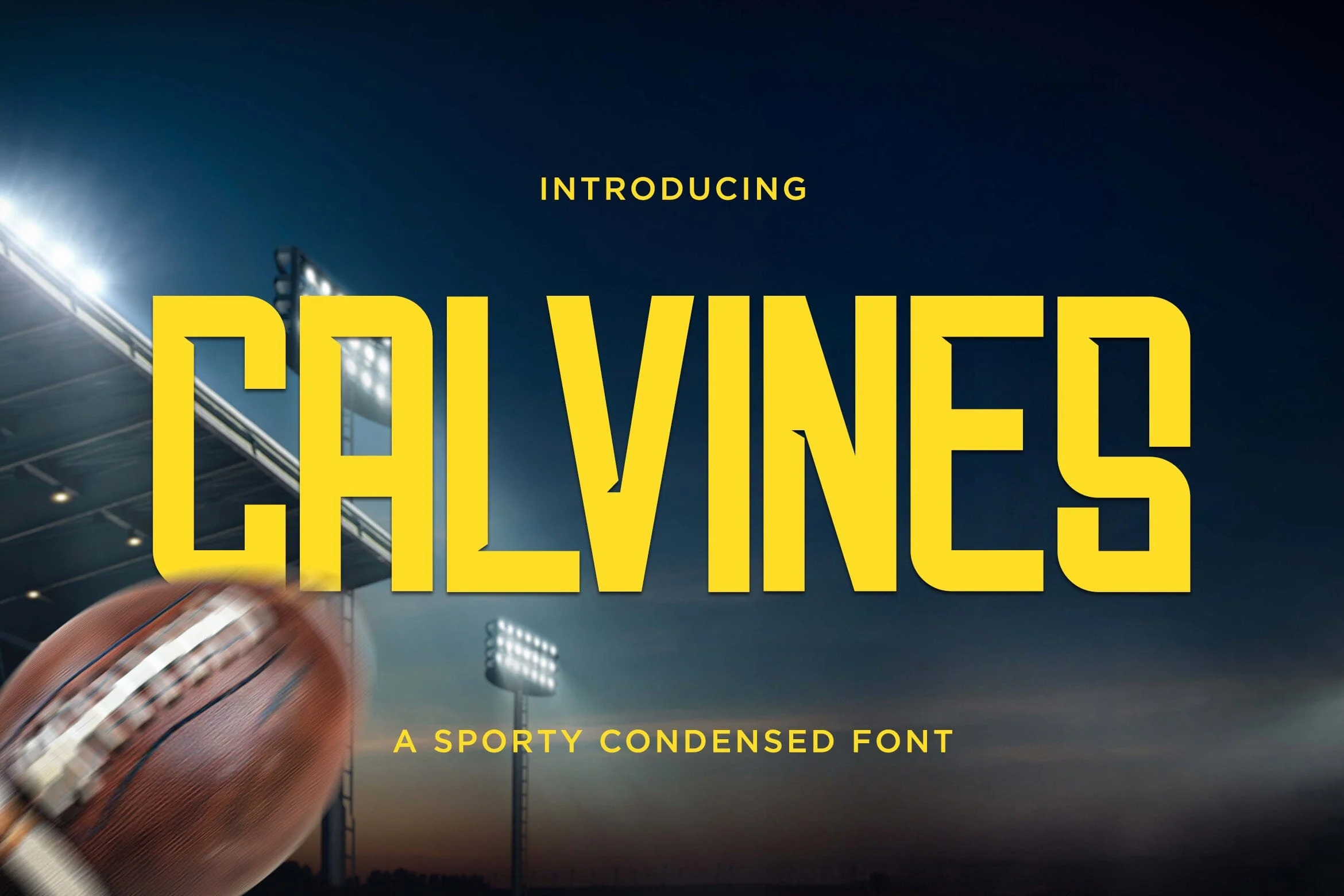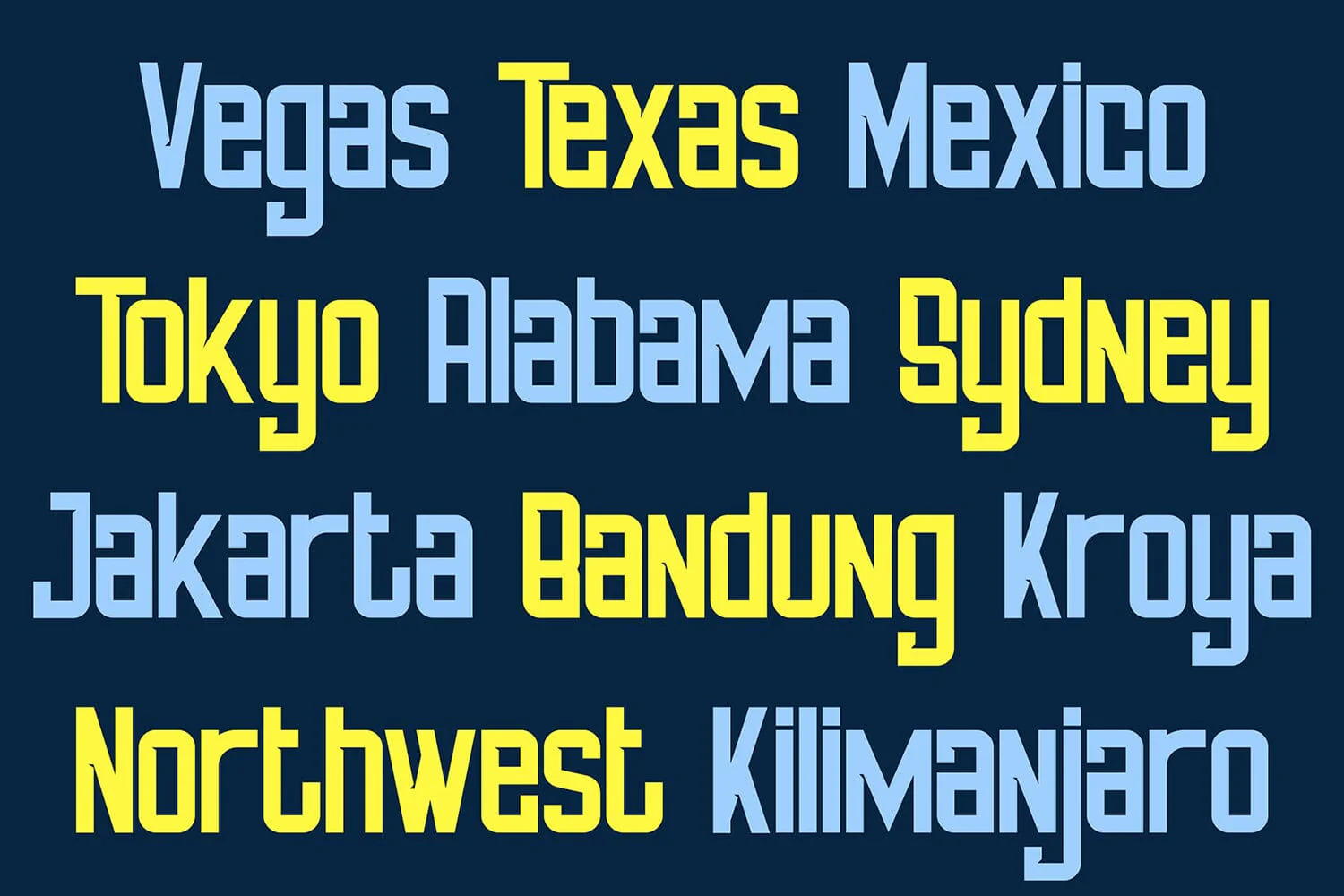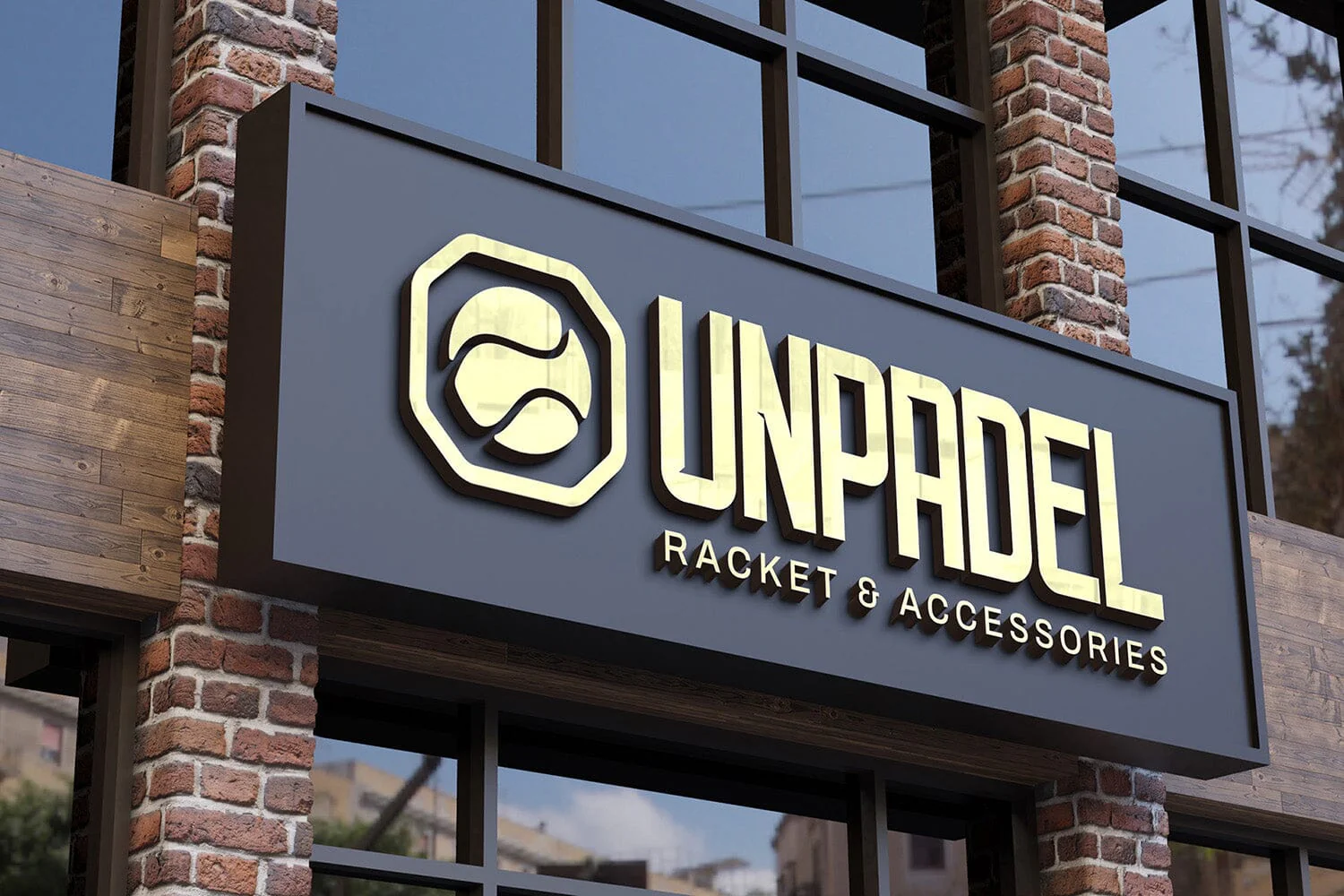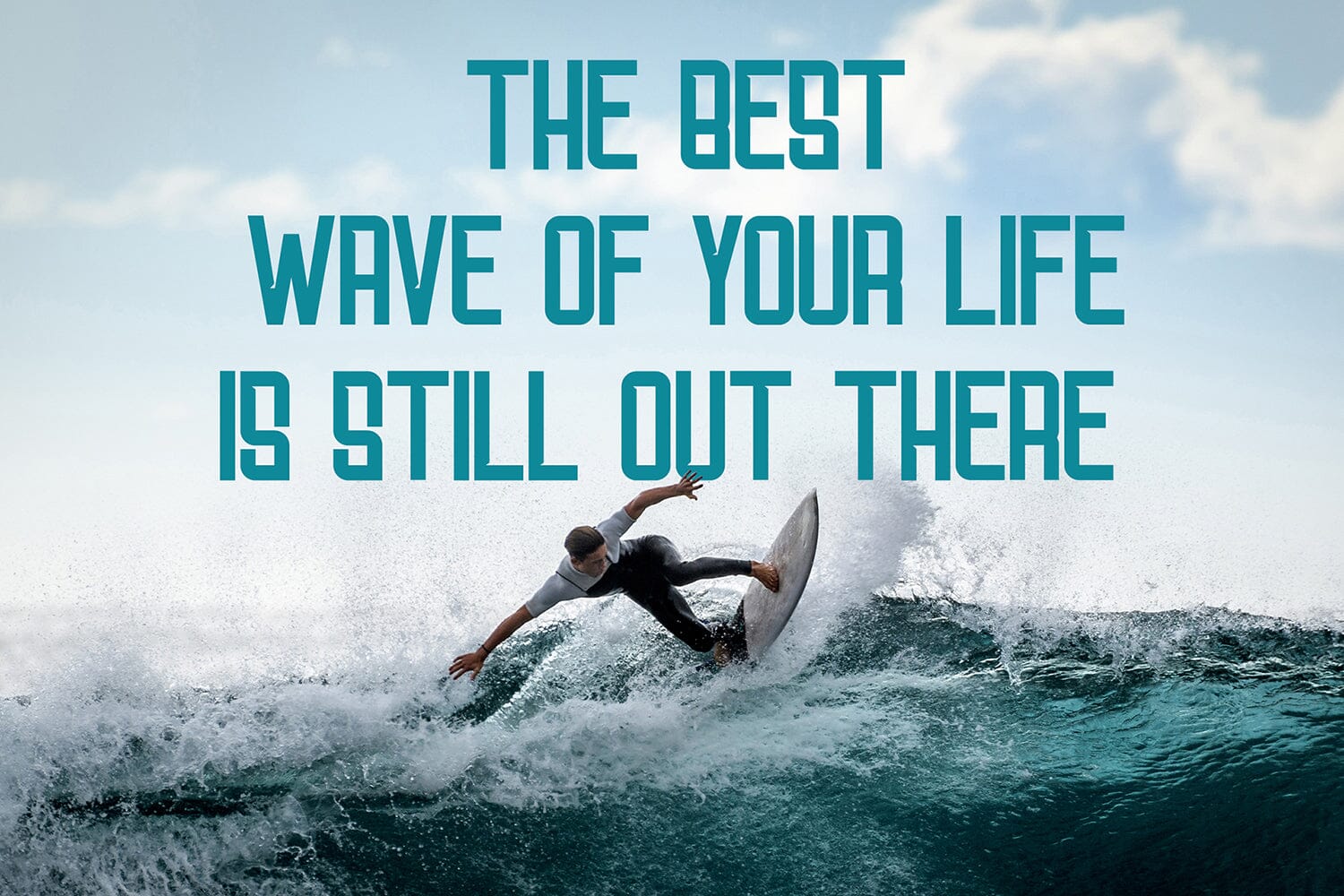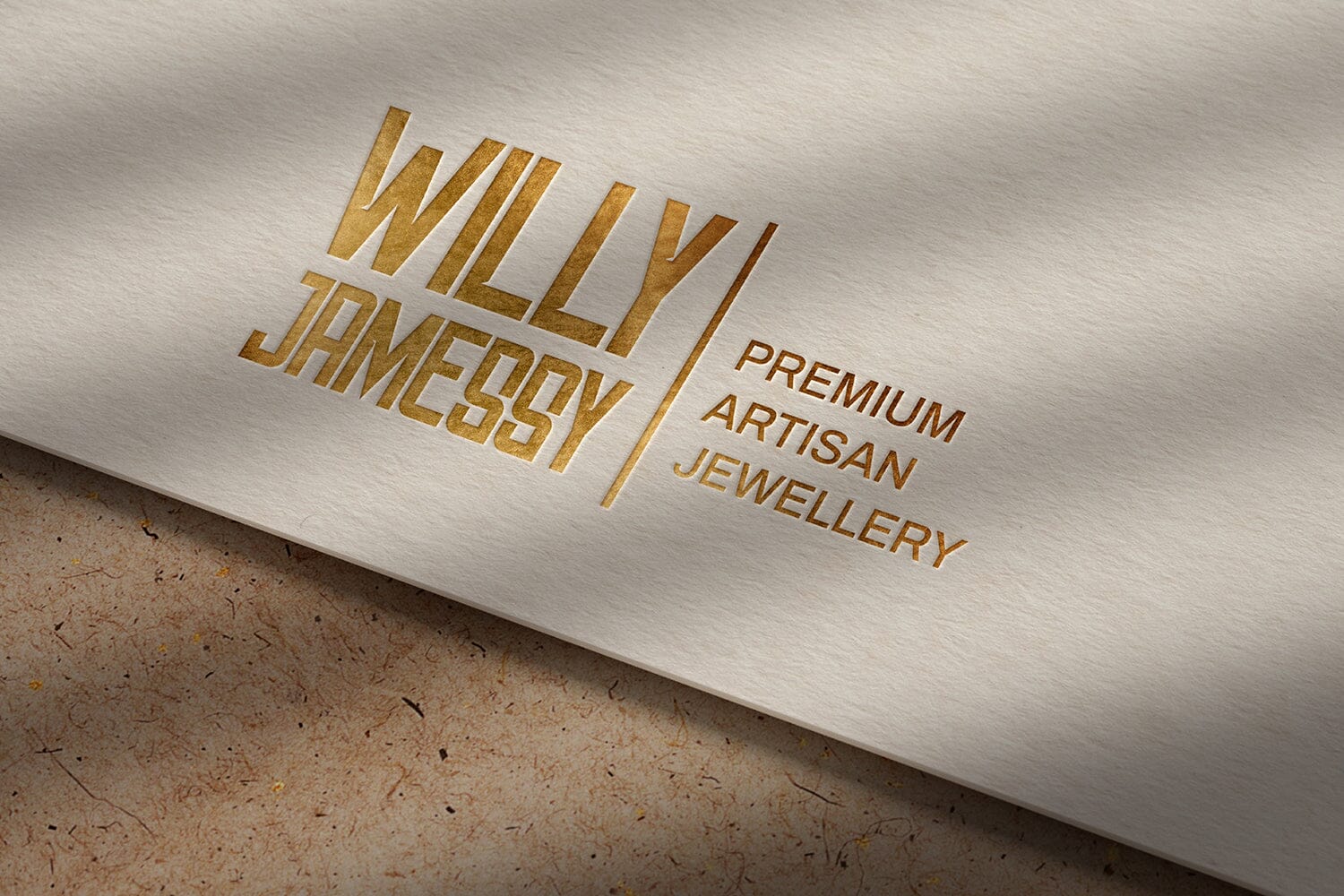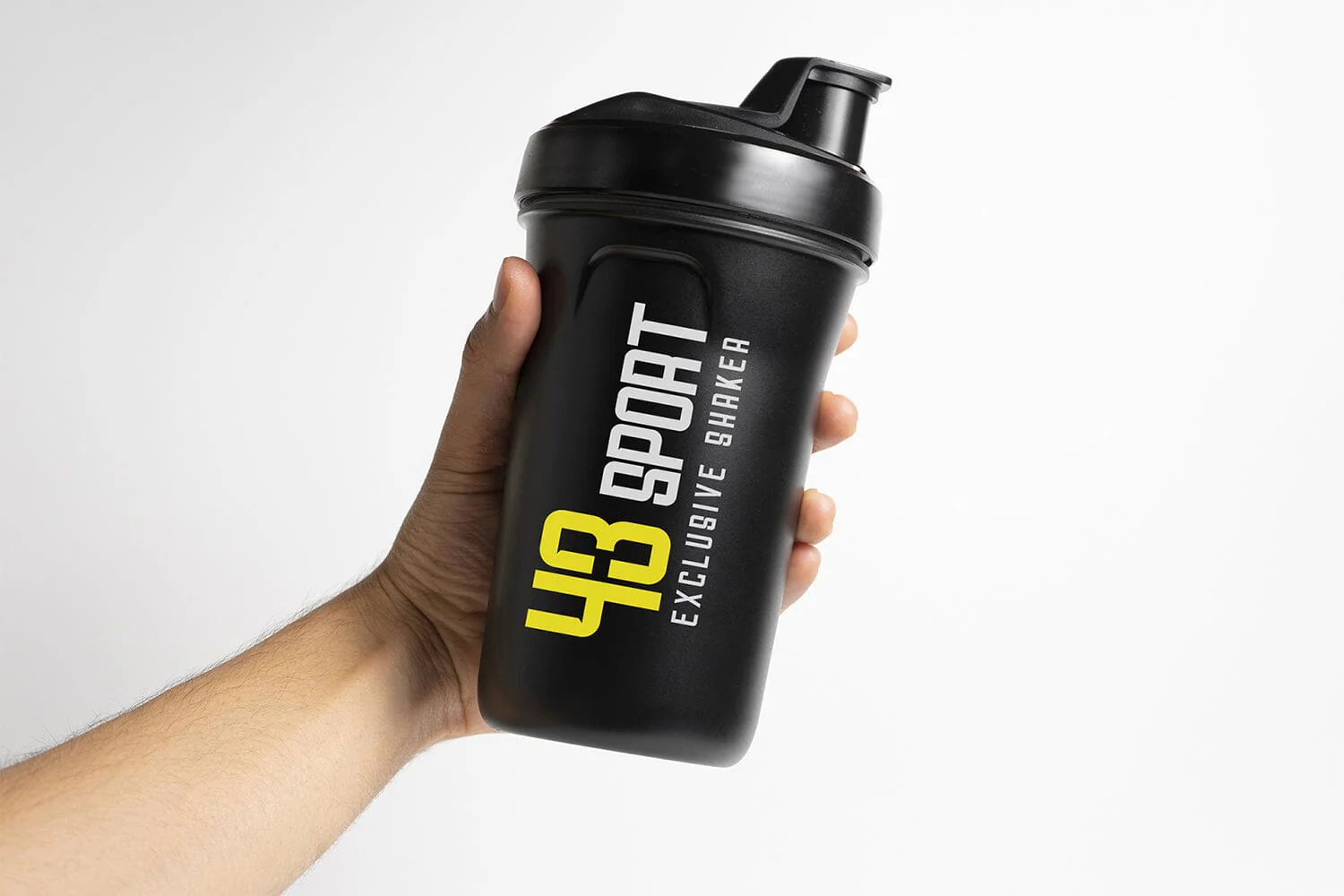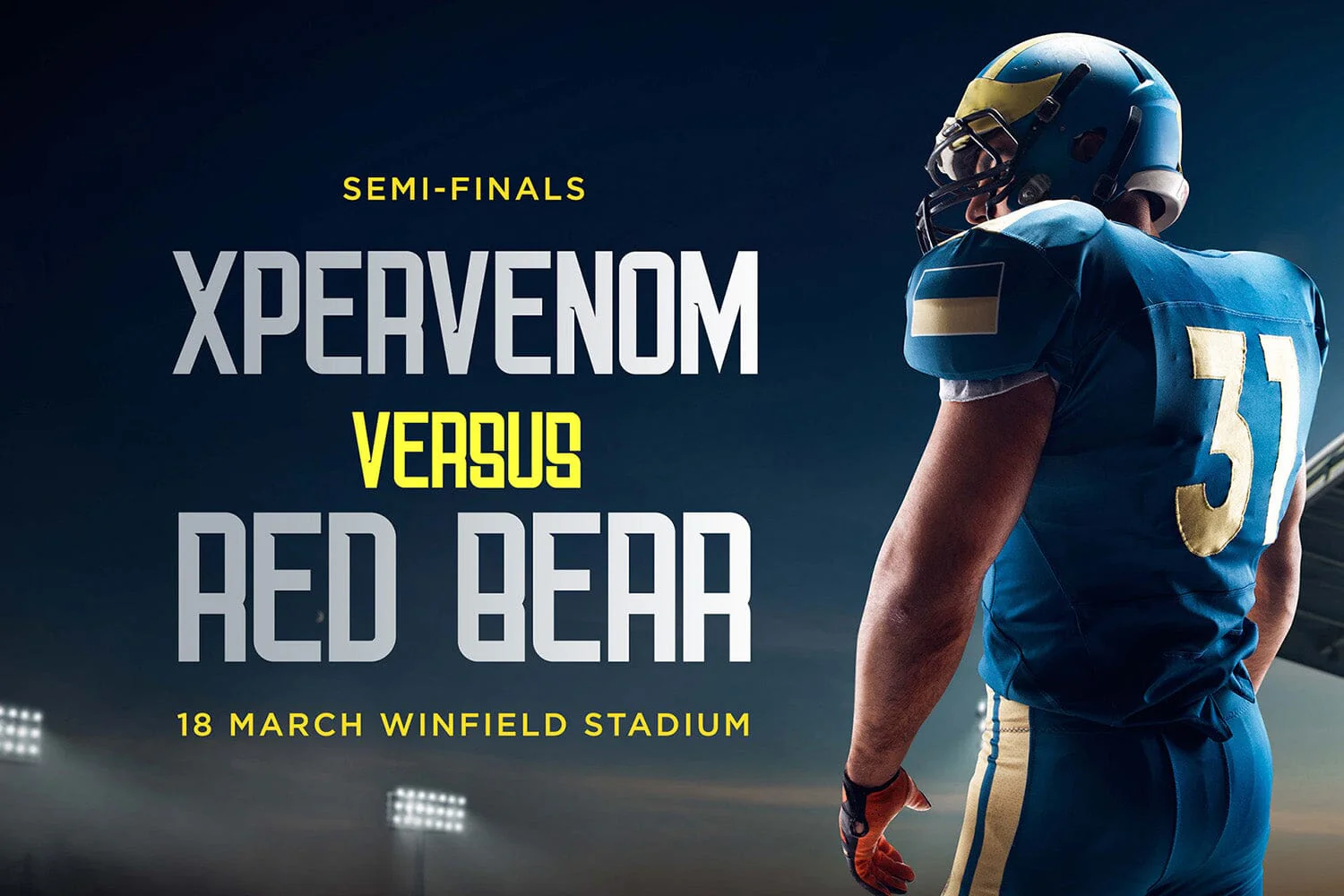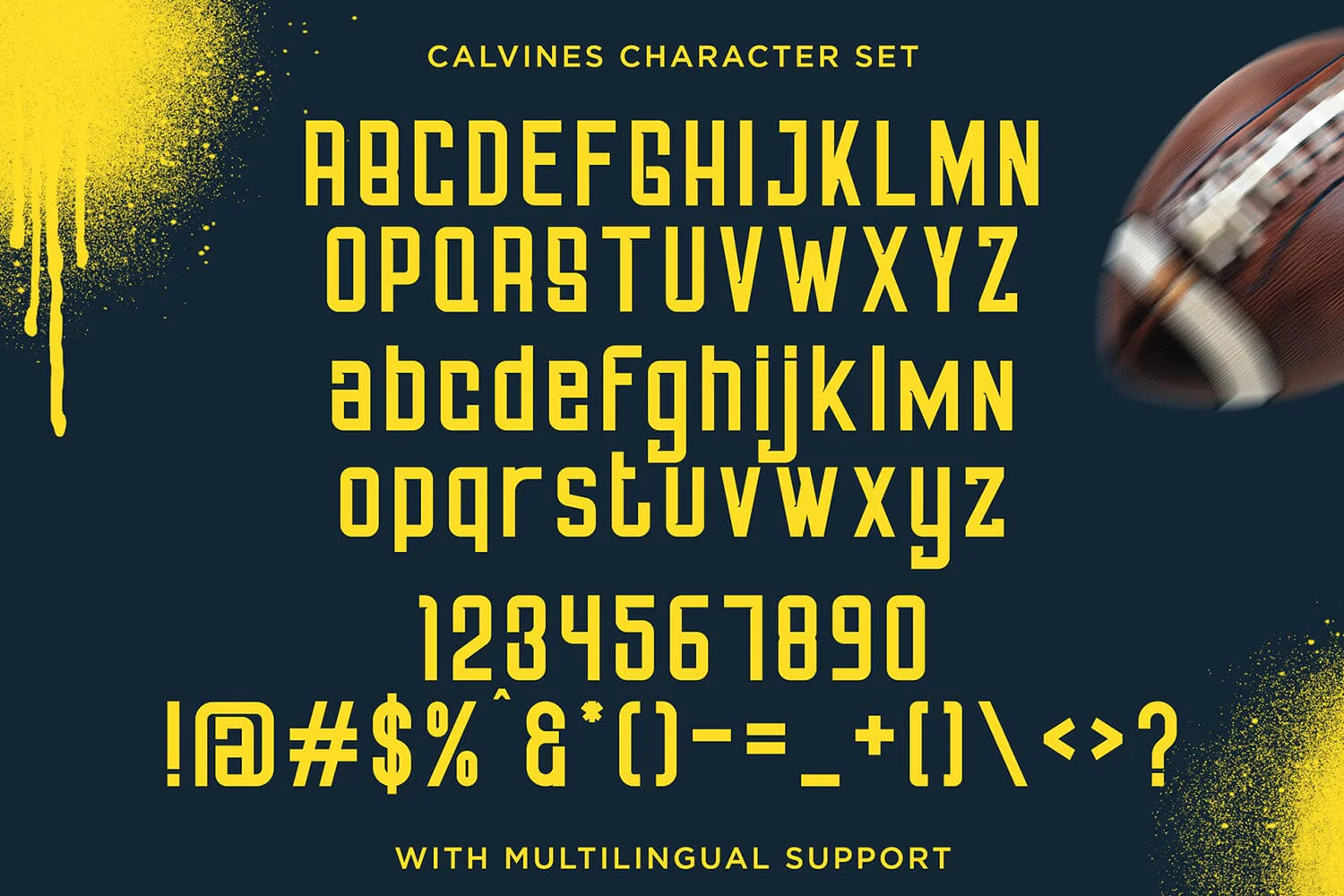
Calvines - Sporty Condensed Sans Serif Font
Introducing Calvines - Sporty Condensed Sans Serif Font
Calvines is a sporty sans serif condensed font designed with a strong, modern, and energetic style. Its tall and narrow letterforms create a powerful visual impact, making it perfect for bold headlines and attention-grabbing designs.
This font works great for logos, branding, posters, headlines, social media graphics, packaging, labels, digital graphics, and modern typography projects. Calvines delivers a clean and dynamic appearance that helps your design feel active, professional, and contemporary.
With its condensed structure and sporty character, Calvines is ideal for designers who want a sleek, confident, and impactful typographic style.
Introducing Calvines - Sporty Condensed Sans Serif Font
Calvines is a sporty sans serif condensed font designed with a strong, modern, and energetic style. Its tall and narrow letterforms create a powerful visual impact, making it perfect for bold headlines and attention-grabbing designs.
This font works great for logos, branding, posters, headlines, social media graphics, packaging, labels, digital graphics, and modern typography projects. Calvines delivers a clean and dynamic appearance that helps your design feel active, professional, and contemporary.
With its condensed structure and sporty character, Calvines is ideal for designers who want a sleek, confident, and impactful typographic style.